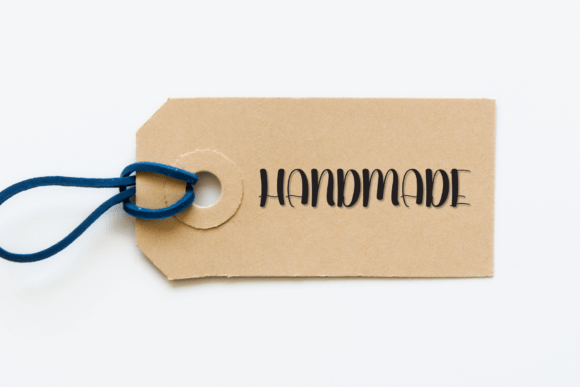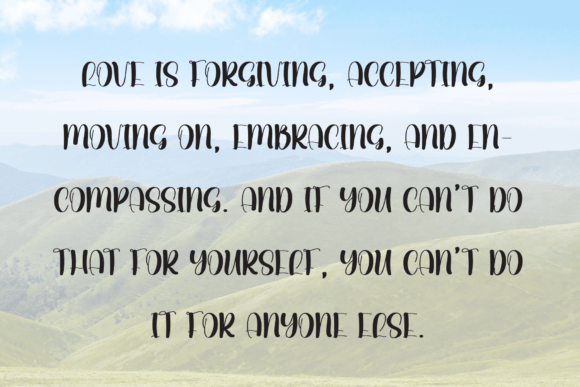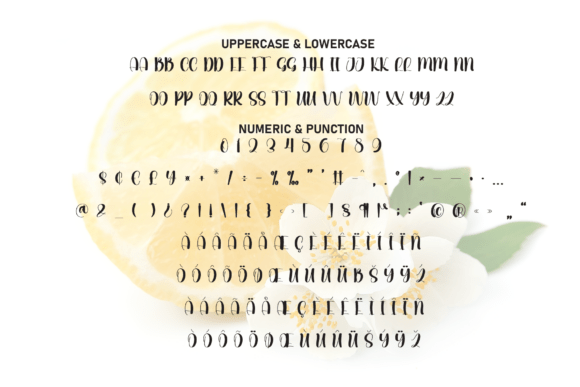
Introduction to Lemon Jasmine Font
Meet our charming, handwritten display font that exudes sweetness and friendliness.
Adorably expressive and teeming with fun, this typeface breathes life into wedding invitations or cards that need a fun-loving vibe The enchanting strokes add a touch of whimsy to any design seeking playful elegance.
Key Features of Lemon Jasmine Font